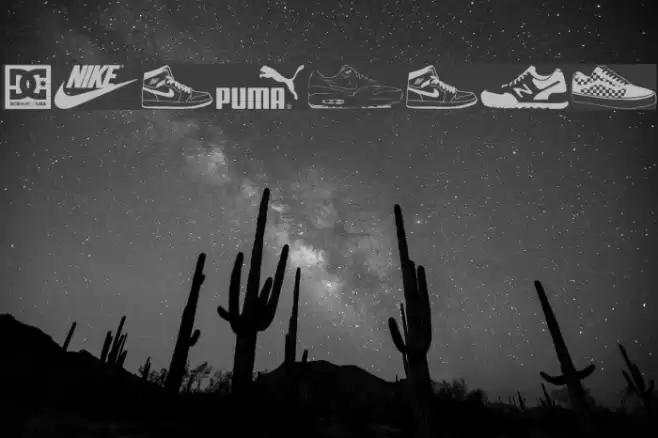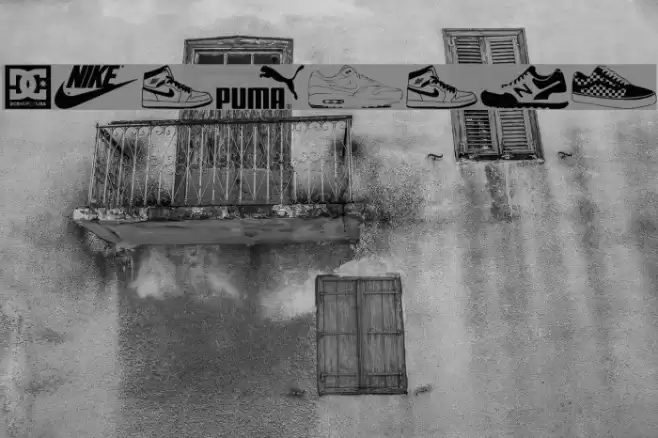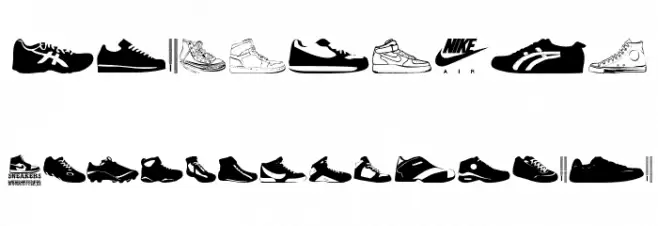
Sneakers Font
Sneakers Description
A decorative display font composed of detailed sneaker and athletic shoe illustrations, including brand logos and various shoe silhouettes, arranged to represent each character. The style is playful and graphic, with high contrast and a mix of solid black and outlined forms.
A display font made from sneaker and athletic shoe illustrations from Uncategorized fonts.
- Proposed Projects: Streetwear branding, sneaker event posters, youth-oriented advertising, sports-themed graphics, apparel design.
- Overall Style: Decorative, Playful, Urban
- Use Case: Logos, Headlines, Posters, Apparel, Event Branding